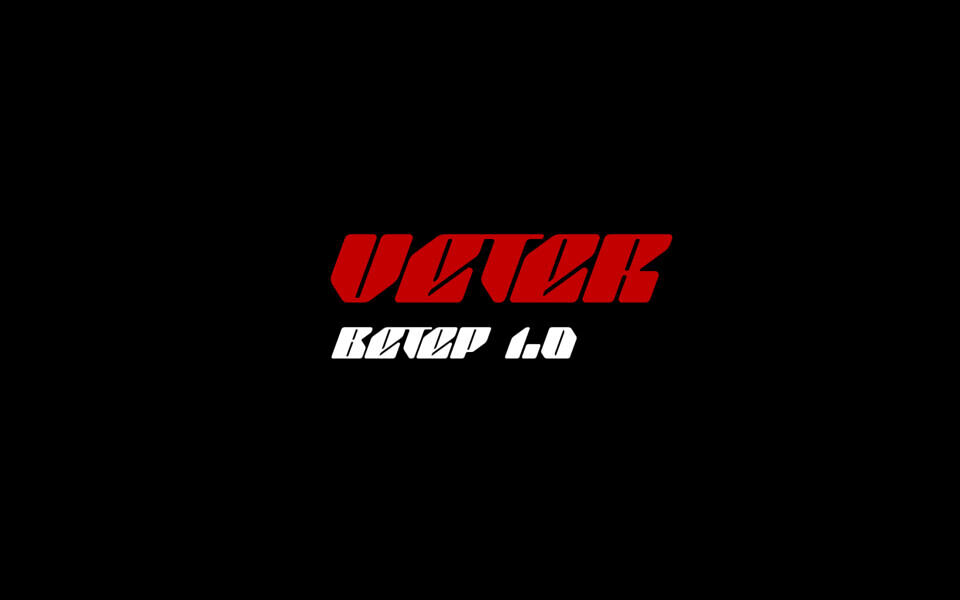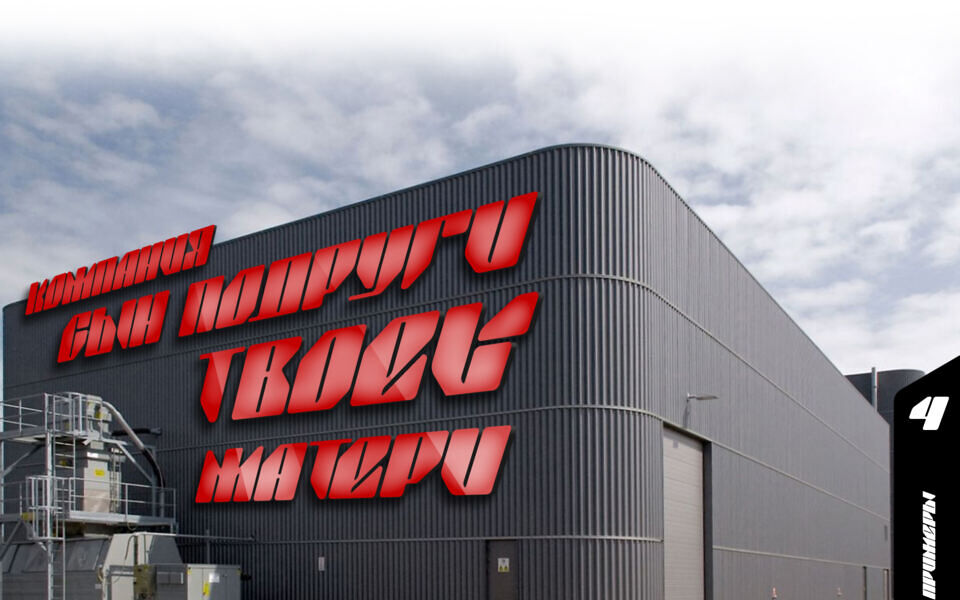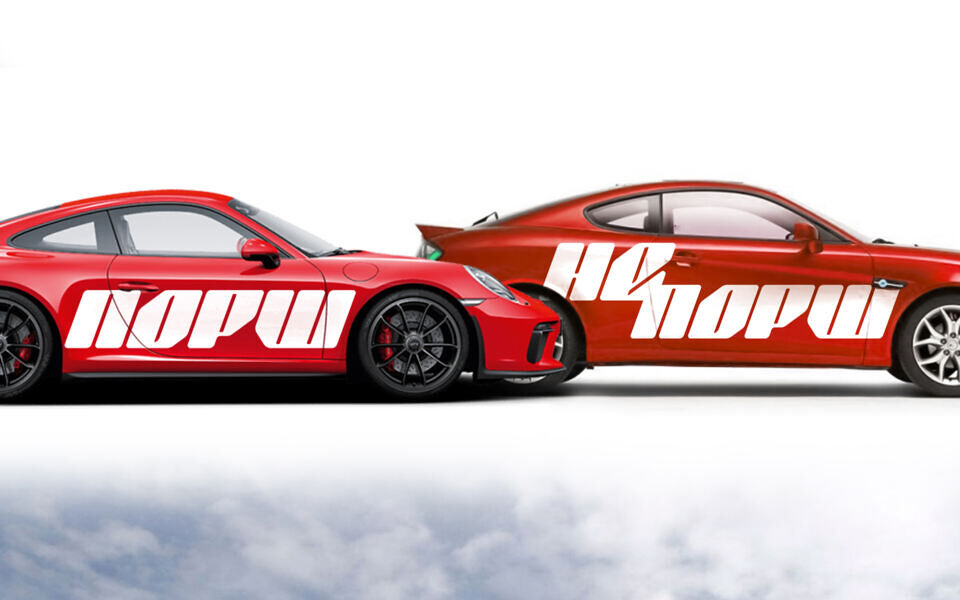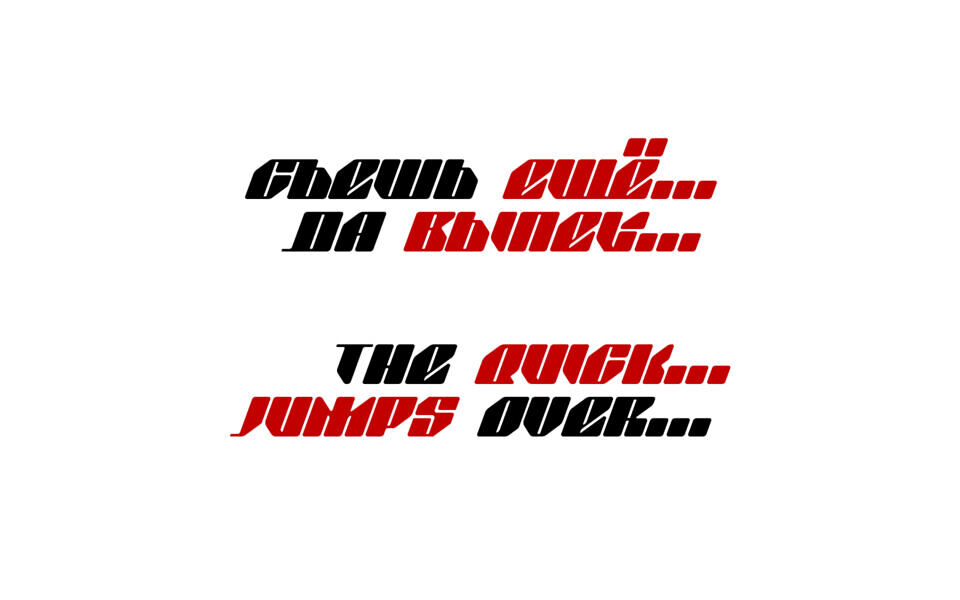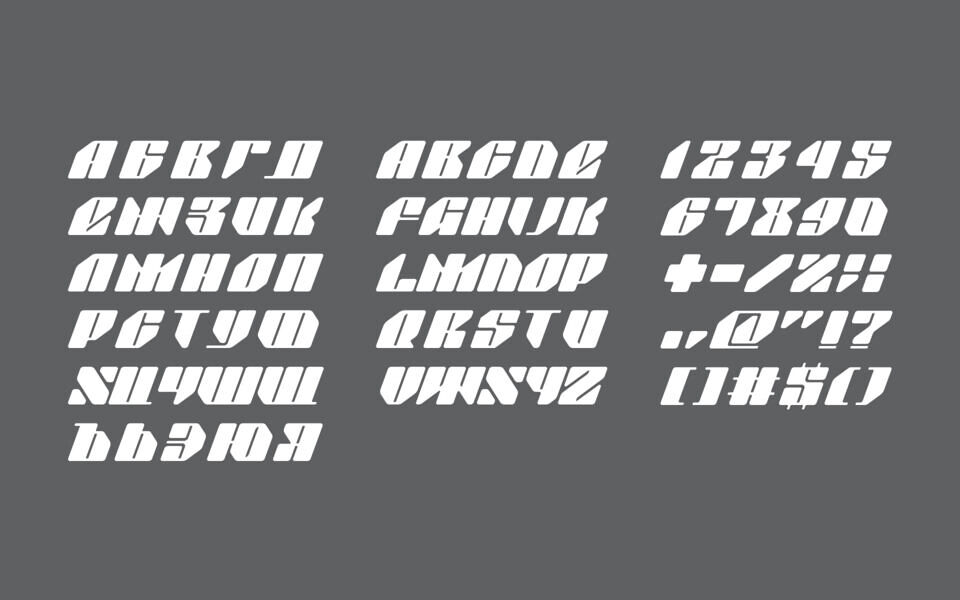
Veter is a bold display typeface designed by Tim Kasimoff. It features a futuristic, geometric design with sharp angles and clean lines, making it ideal for headlines, logos, sports branding, and modern projects. The font is available for free for both personal and commercial use.